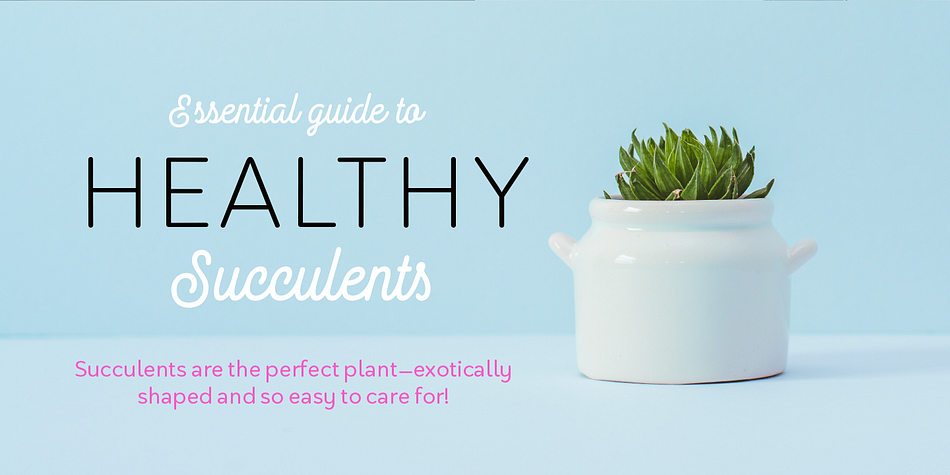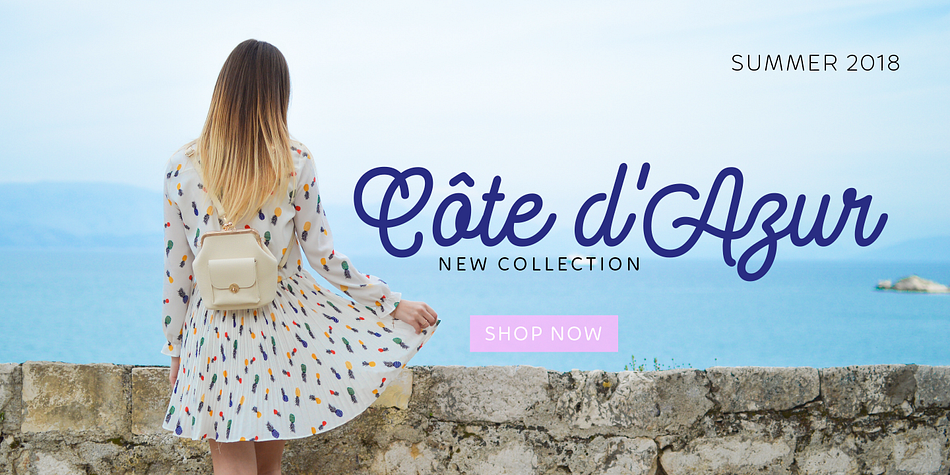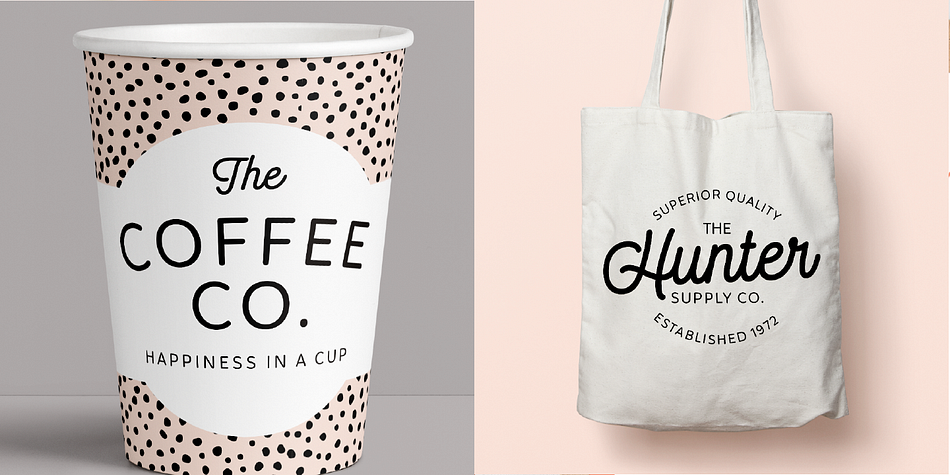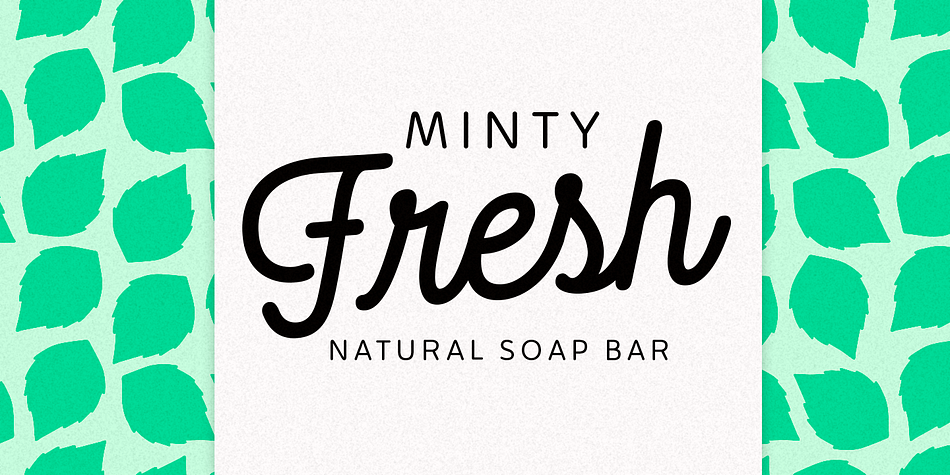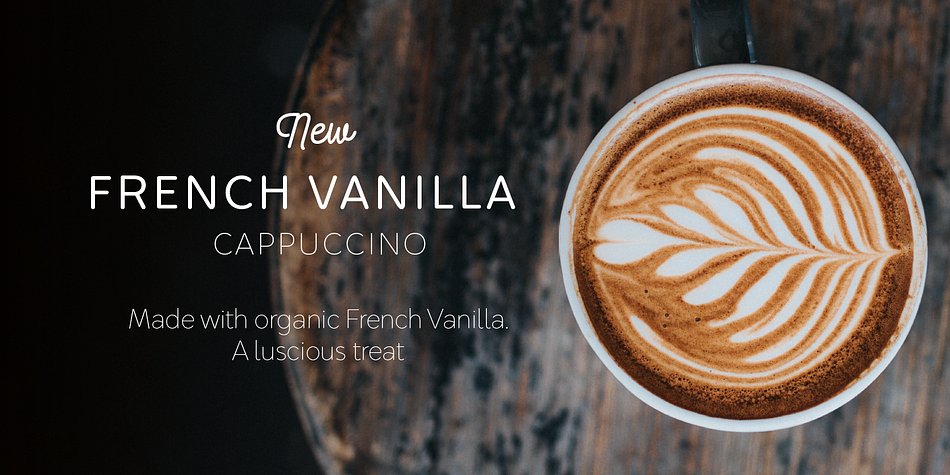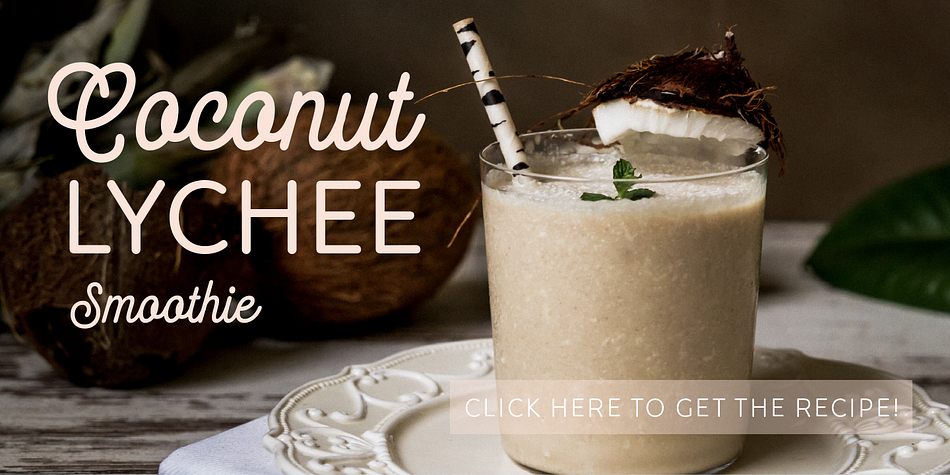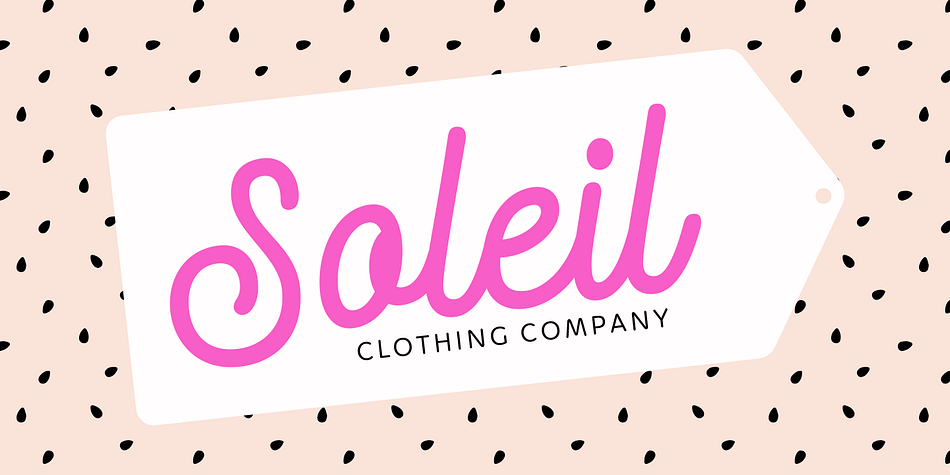
Aromática
Designed by Sofia Mohr, Aromática is a dingbat, sans serif and script font family. This typeface has seven styles and was published by Latinotype.
Aromática—designed by Sofia Mohr—is a rounded typeface with a simple and clean look that reminds us of those strokes found in handwriting while providing functionality and readability.
Aromática consists of 7 fonts: a monolinear Script, a Sans-serif of 5 weights, ranging from Extra Light to Bold, and a Patterns font, inspired by aromatic herbs and spices, which is the perfect companion to the Script and Sans faces.
Aromática was specially designed for branding and packaging, but it may also be used for headlines, publishing and advertising. The family comes with a character set that supports 207 different languages.